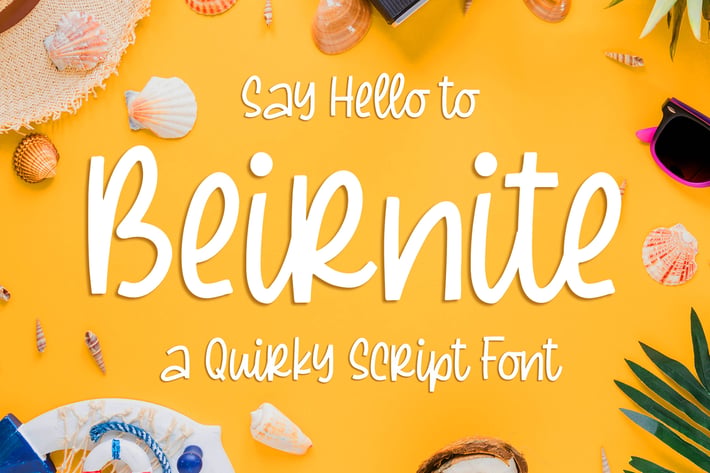
Beirnite - a Quirky Script Font
Introducing of our new product the name is Beirnite a Quirky Script Font. Beirnite inspired by modern calligraphy this font is a fun theme very good for food logo, food menu, wedding invitation, logotype and etc